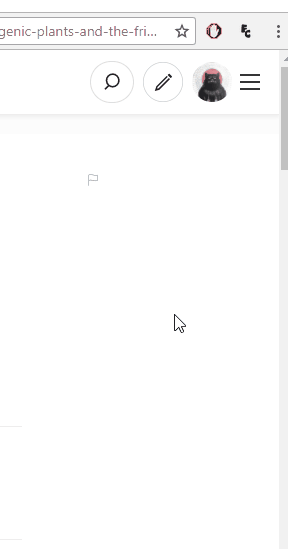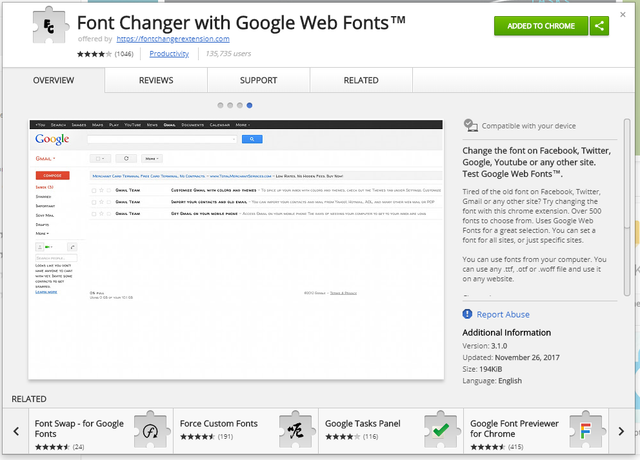
Quick Tip | Change Steemit Font in Chrome
If you're like me and are very demanding with your fonts and find the default font (Source Serif Pro) for Steemit's body text hard to read (seriously, serif fonts are hard to read on a computer display. At least for me.) then there are ways to change the font to something more eye-pleasing.
To change the font in Chrome, you will need the help of a useful extension, Font Changer, that will allow the fonts for any website. It will even remember what font you picked.
Using it is easy – simply click on the icon in the top left corner of the browser, which will open up a menu window, where you can choose the font for the site that you're currently on. There is a wide selection of web fonts available that you can easily pick from a drop-down list.